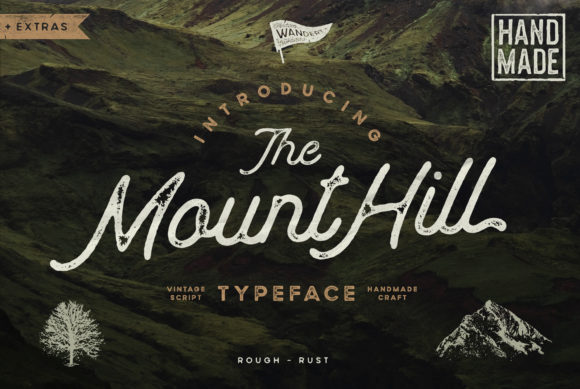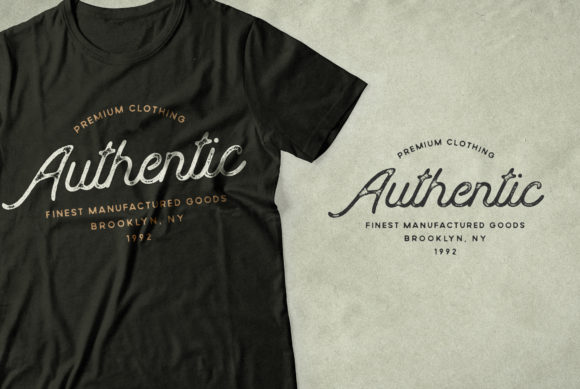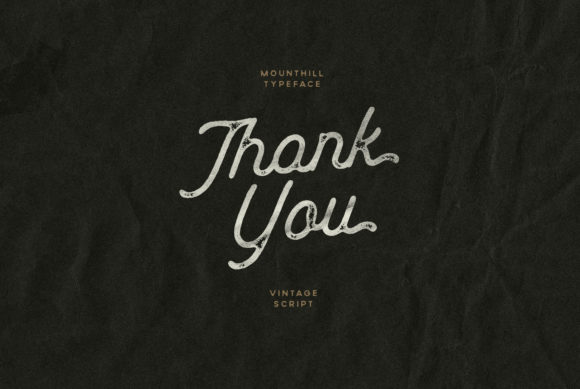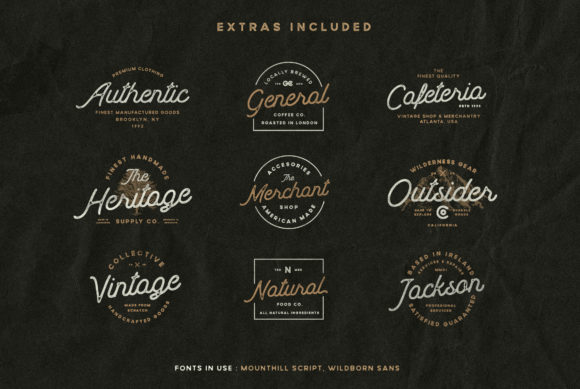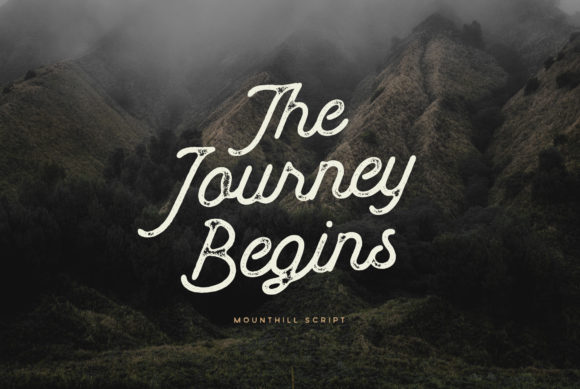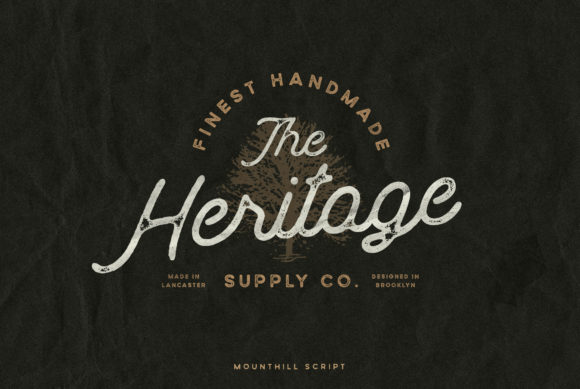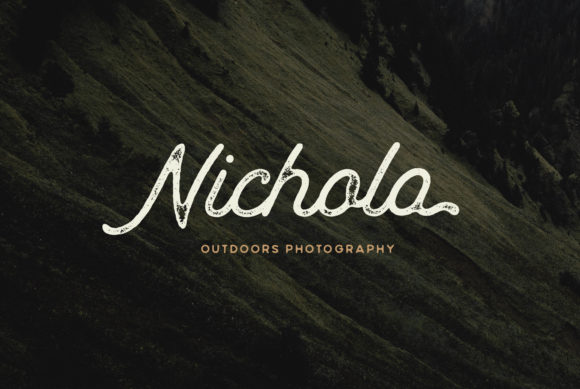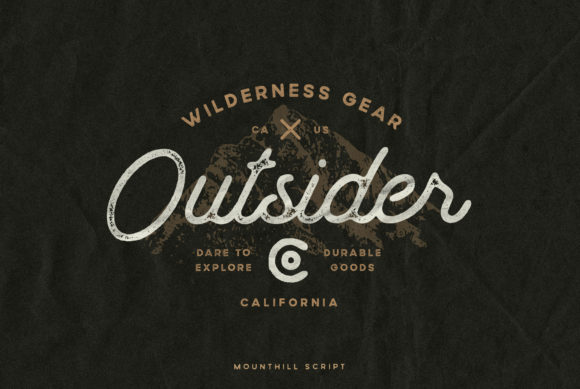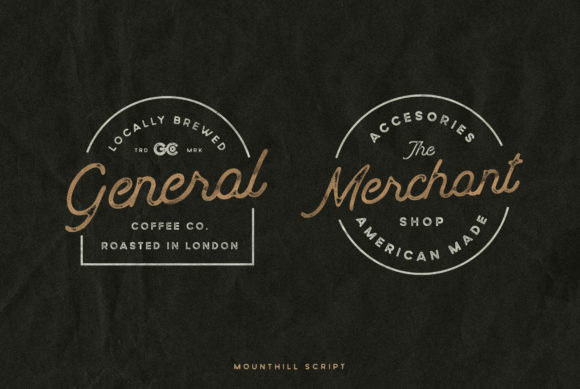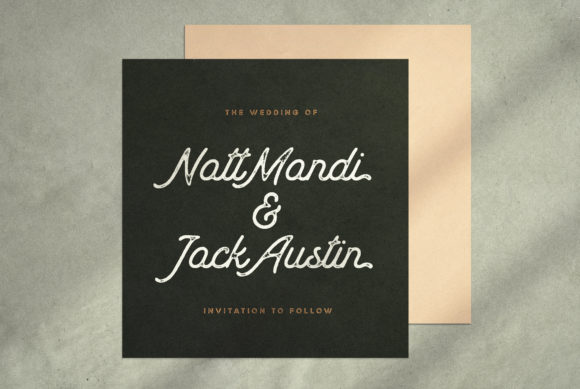
MountHill Font
About MountHill Font
MountHill is a casual, fun handwritten font, created by using a brush pen. Clean and a little bit quirky, this font is the perfect fit for all of your logos, branding, social media, and crafty DIY projects.